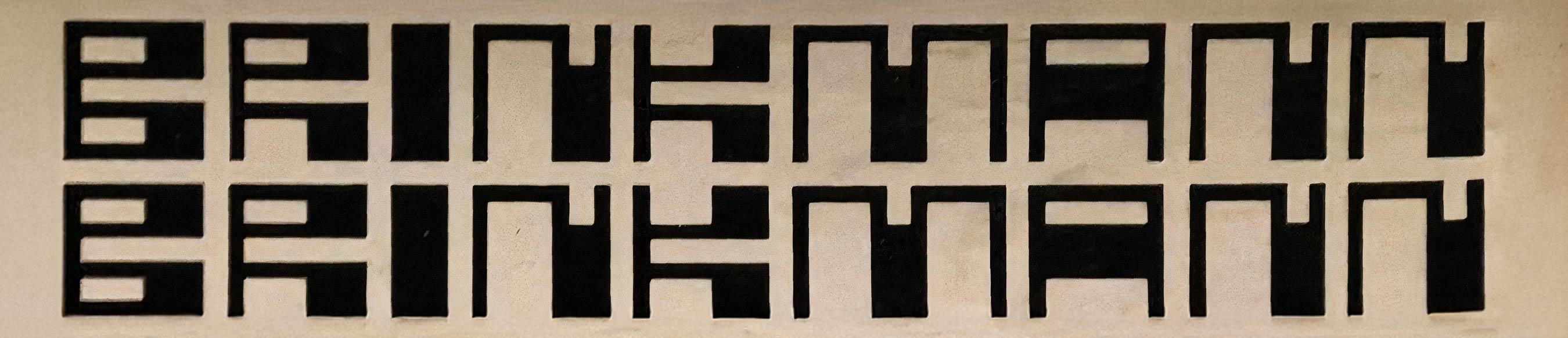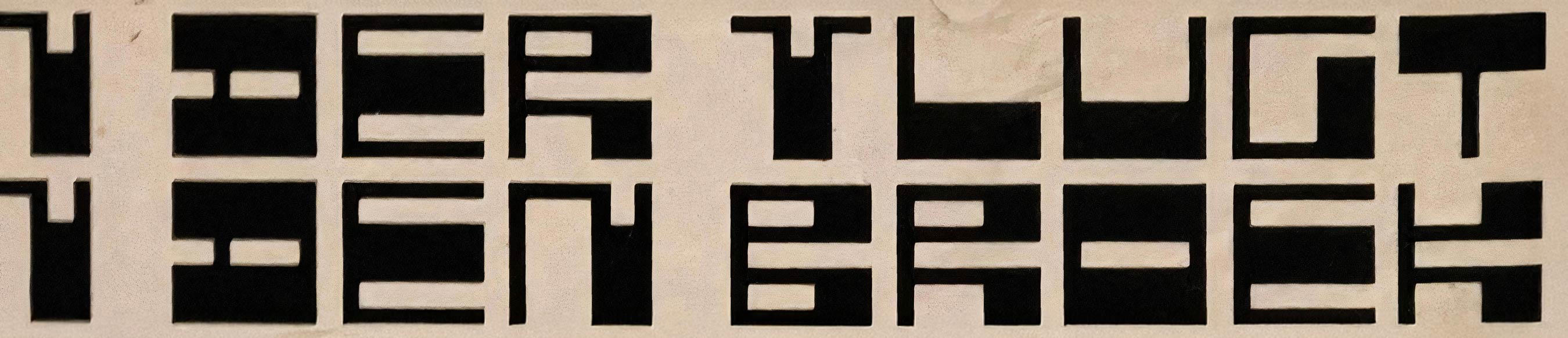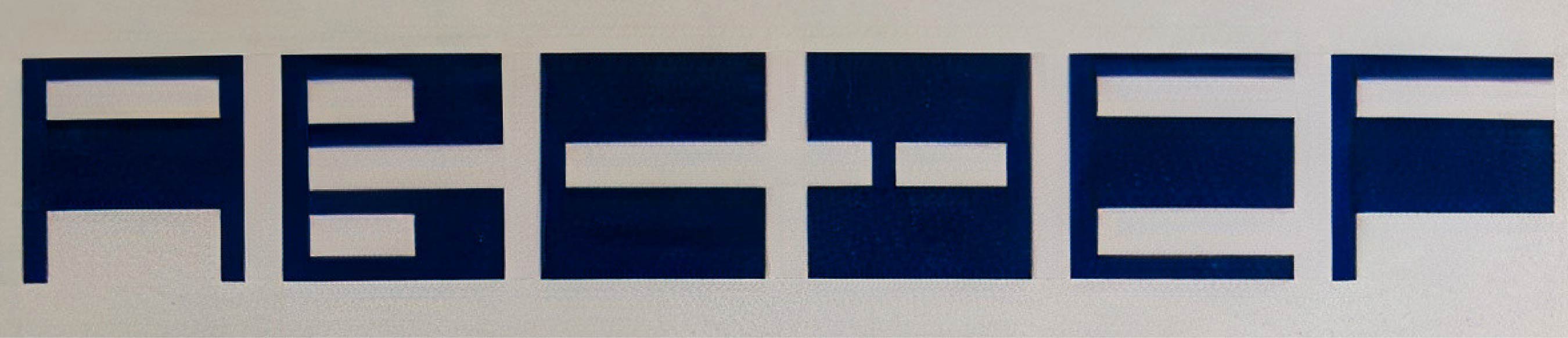
Wrightex
Wrightex is a modular and minimalist display typeface designed by Ramiro Espinoza, inspired by the striking lettering created by English designer and architect Edward Wright (1912–1988) for the cover of a 1960 issue of the Architectural Association Journal. Wright’s design—bold, reductive, and rooted in Constructivist principles—embodied the spirit of postwar geometric idealism.
With Wrightex, Espinoza transforms Wright’s original concept into a complete and contemporary typeface. Its letterforms are built on a strict modular system, featuring reverse contrast and no curves, lending themselves to impactful compositions. Ideal for posters, exhibition graphics, branding, and museum communication pieces, Wrightex offers designers a clean, modern tool with deep historical roots.
Both homage and reinterpretation, Wrightex channels the essence of Edward Wright’s typographic vision—rational, economical, and strikingly modern. Now available through Brutal Types.